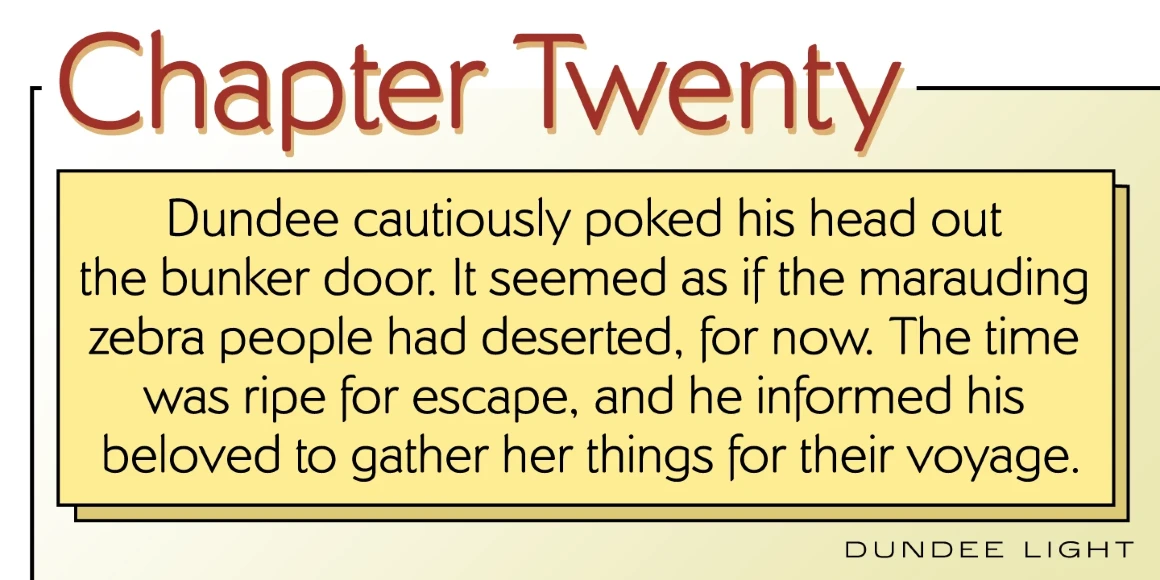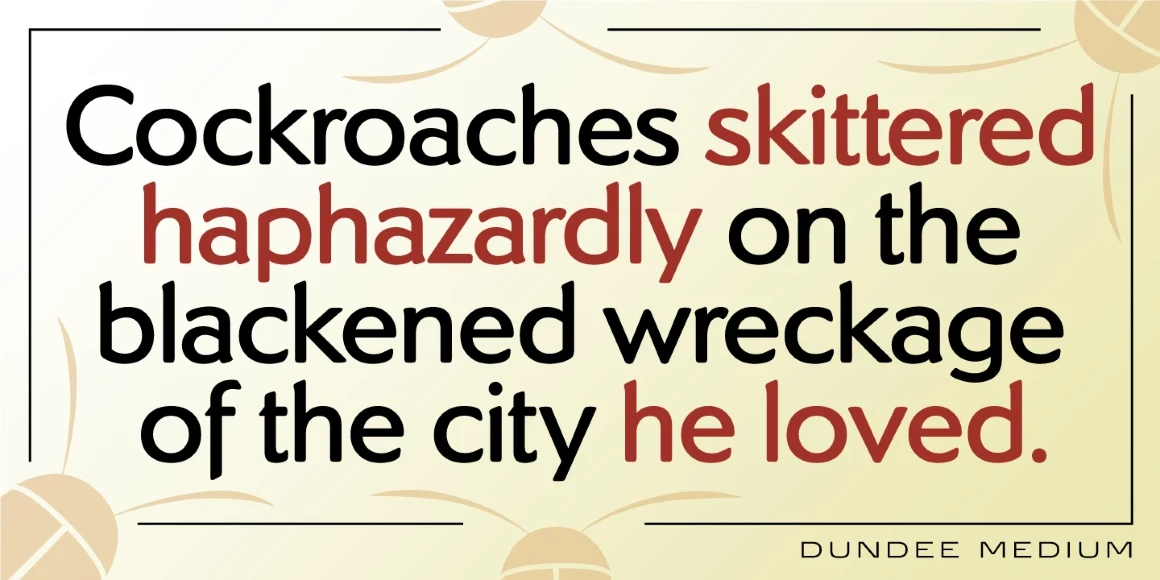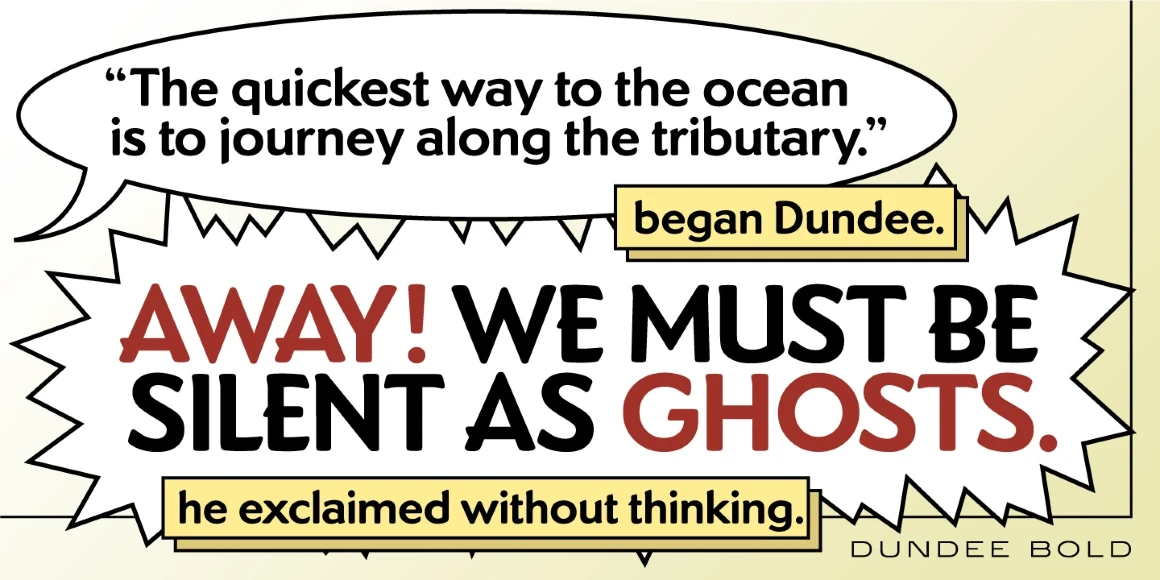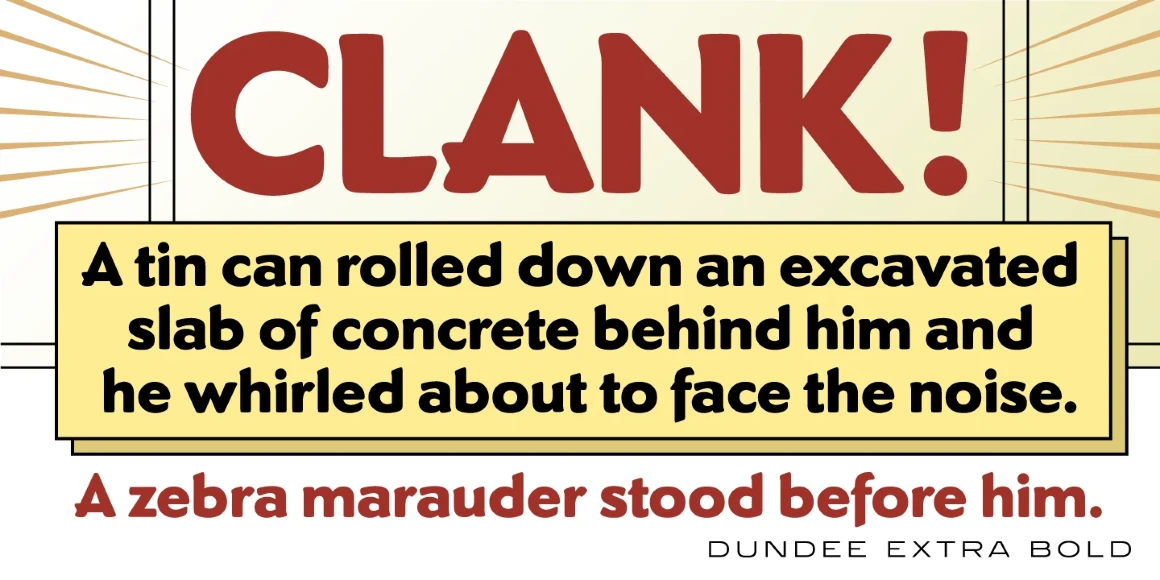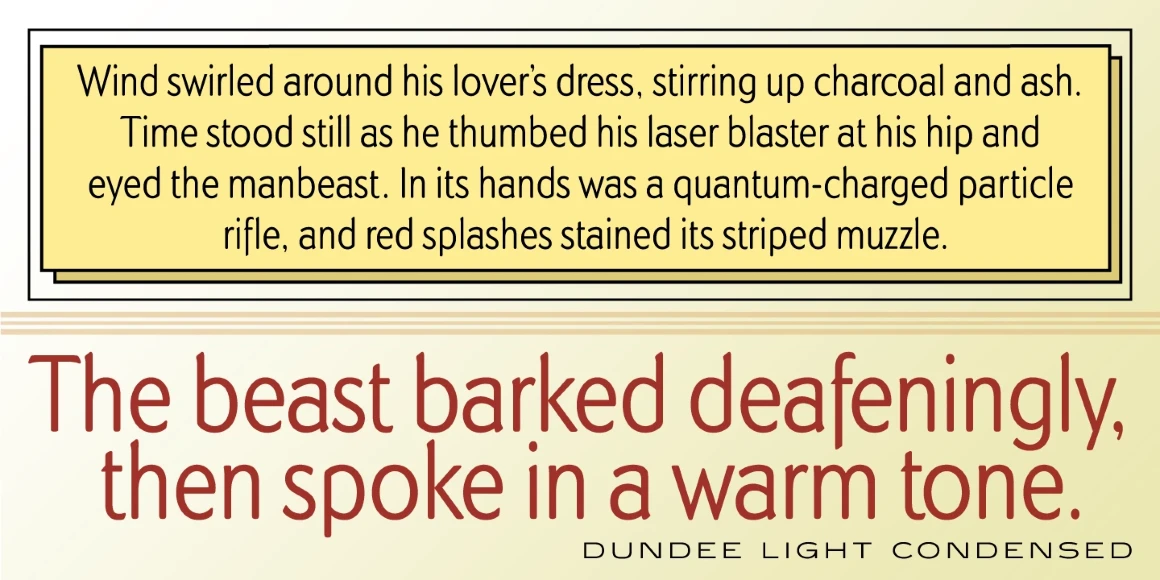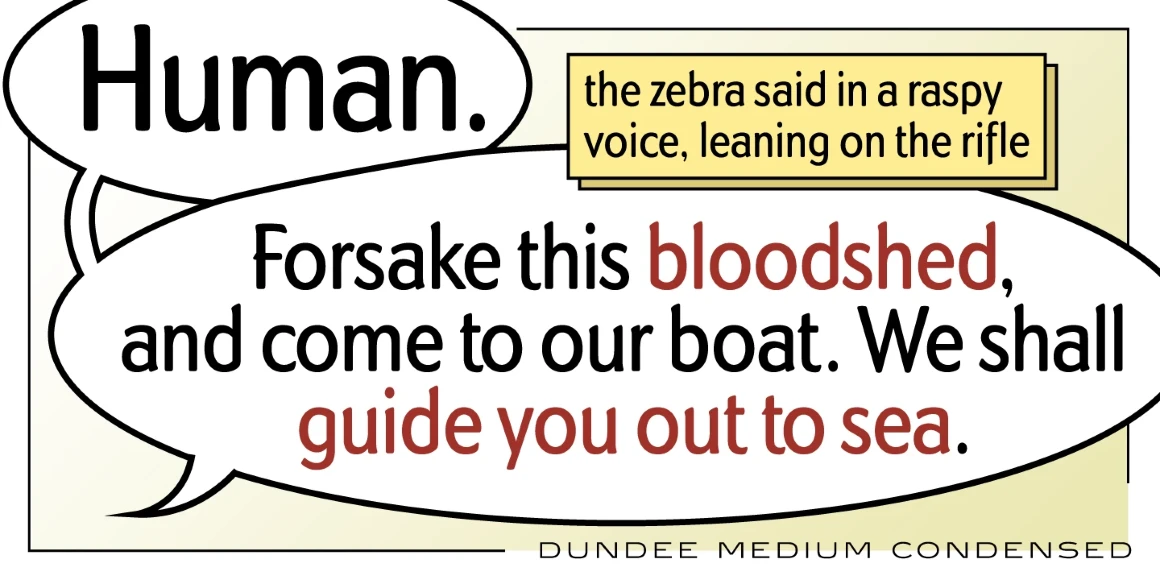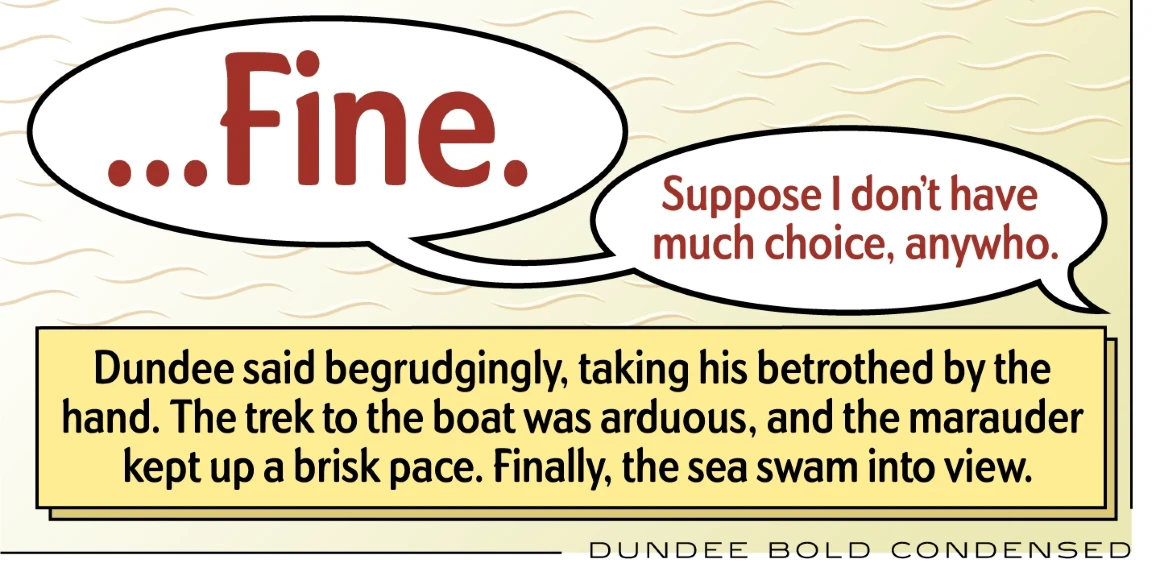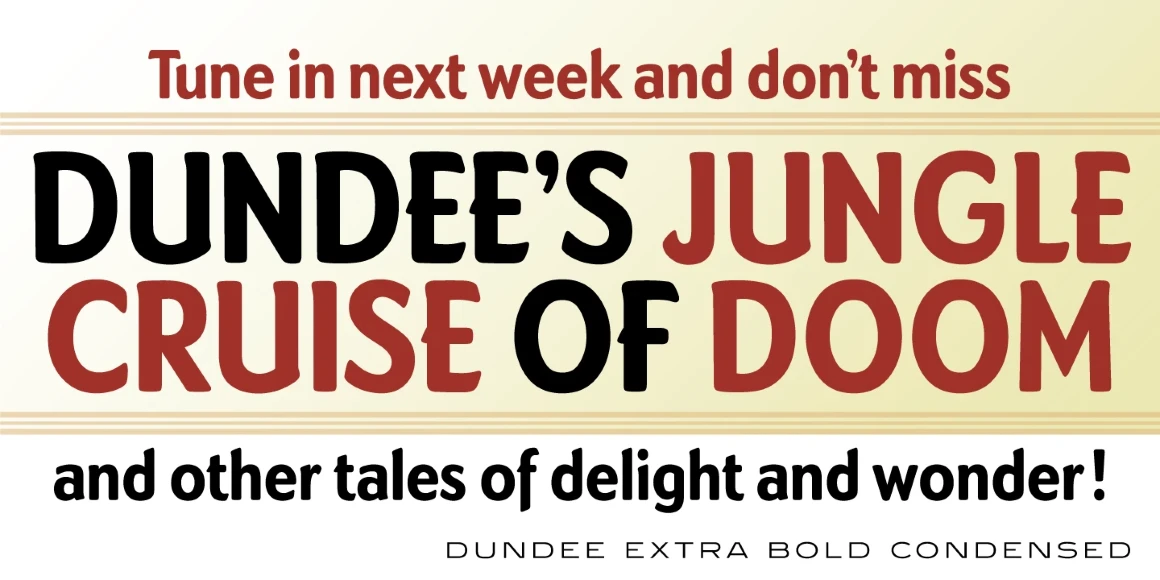
Dundee is a unique glyphic face, in that it can be interpreted as both a serif and sans serif font family. Its digital letterforms were manufactured by Pat Hickson (P&P Hickson) exclusively for the Red Rooster Collection, and its full commercial version was produced by Steve Jackaman (ITF) in 1993. The design of Dundee was inspired by the various mastheads used in children’s comic books in the United Kingdom, which were published by D.C. Thomson of Dundee, Scotland. Dundee is dexterous enough to be successful in both serious and fun projects.